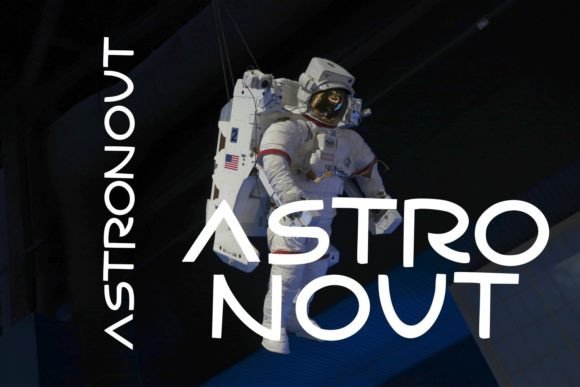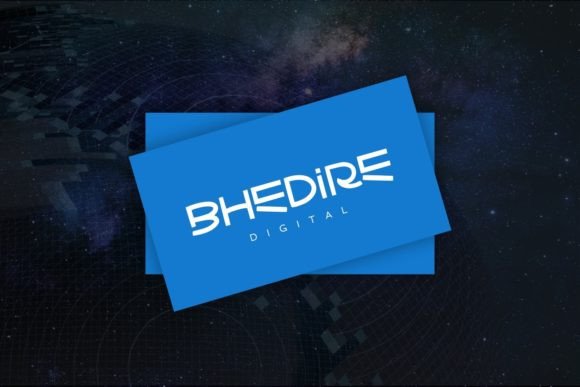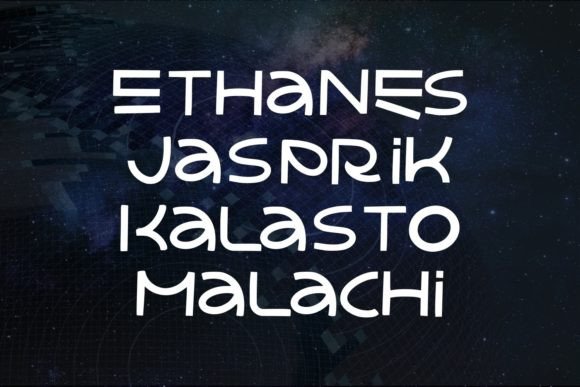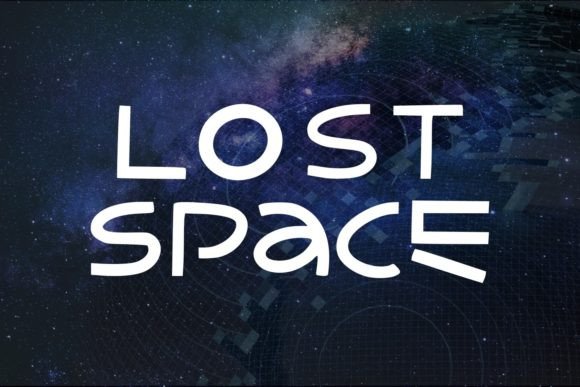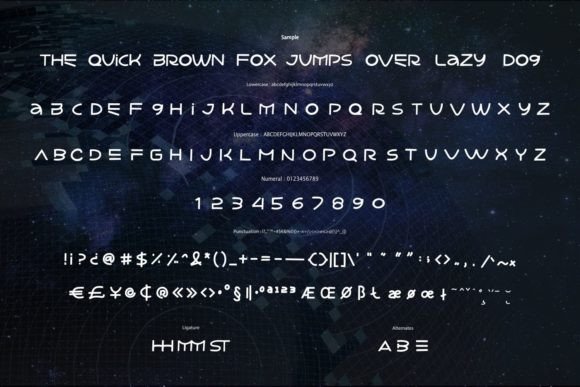
Introduction to Carbond Font
Carbond is a sleek and modern futuristic font that embodies the spirit of innovation and progress.
Its geometric shapes and sharp angles create a bold and edgy look that is perfect for technology, science, and engineering projects The clean lines and futuristic style of the font make it an excellent choice for branding and logo design.
Key Features of Carbond Font
Why Choose Carbond Font?
Carbond Font offers exceptional quality and versatility, making it a valuable addition to your design toolkit. Whether you’re creating for personal projects or commercial use, Carbond Font delivers professional results.